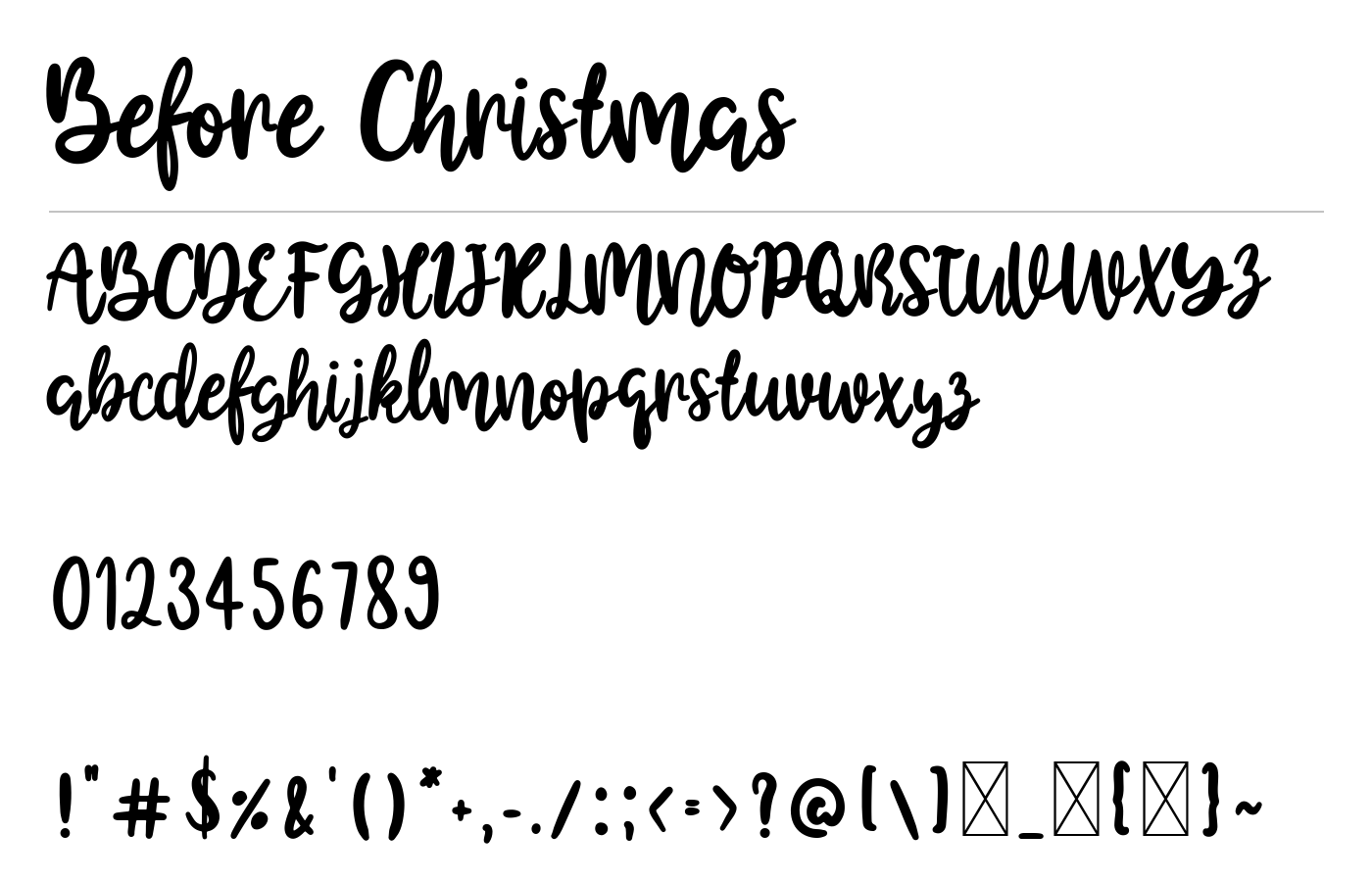
Before Christmas Font is a playful and charming handwritten script that combines a casual, brush-like style with smooth, rounded strokes. Its medium weight and slightly condensed forms give it a friendly, approachable feel, making it ideal for festive holiday designs, greeting cards, and branding that wants to evoke warmth and cheerfulness. This font works beautifully in headlines and decorative text where a personal, joyful touch is desired.
Before Christmas Font